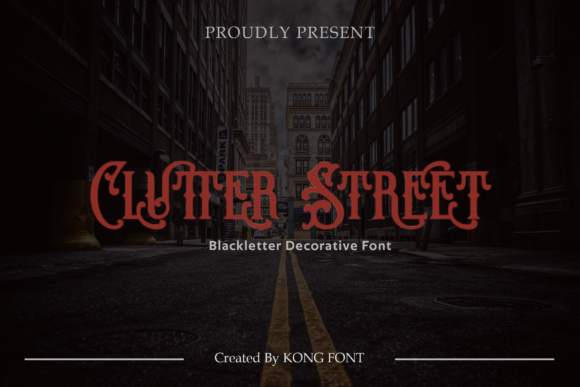
Dive into the captivating realm of Clutter Street Font, a modern and enigmatic blackletter font that will cast a spell on your creative endeavors. Crafted with precision by the ingenious minds at Kong Font Studio, Clutter Street Font beckons you to explore its captivating allure.
This enchanting font family evokes a sense of mystery, intrigue, and timeless elegance, making it the perfect choice for crafting captivating designs that linger in the mind. Its striking silhouette and intricate details add an air of sophistication and intrigue to any project, whether you're creating logos, posters, branding materials, or any other visual masterpiece.
With Clutter Street Font, you'll embark on a journey to the heart of creativity, where your imagination knows no bounds. Its versatility extends from the enchanting world of crafters to the realm of visionary designers, offering endless possibilities for expression. Whether you seek to create spellbinding invitations, captivating book covers, or alluring social media graphics, Clutter Street Font will be your trusted companion, transforming your ideas into tangible works of art.
Join the ranks of discerning designers and crafters who have embraced the allure of Clutter Street Font. Its captivating presence and endless versatility will elevate your projects to new heights, leaving an indelible mark on the hearts and minds of your audience.